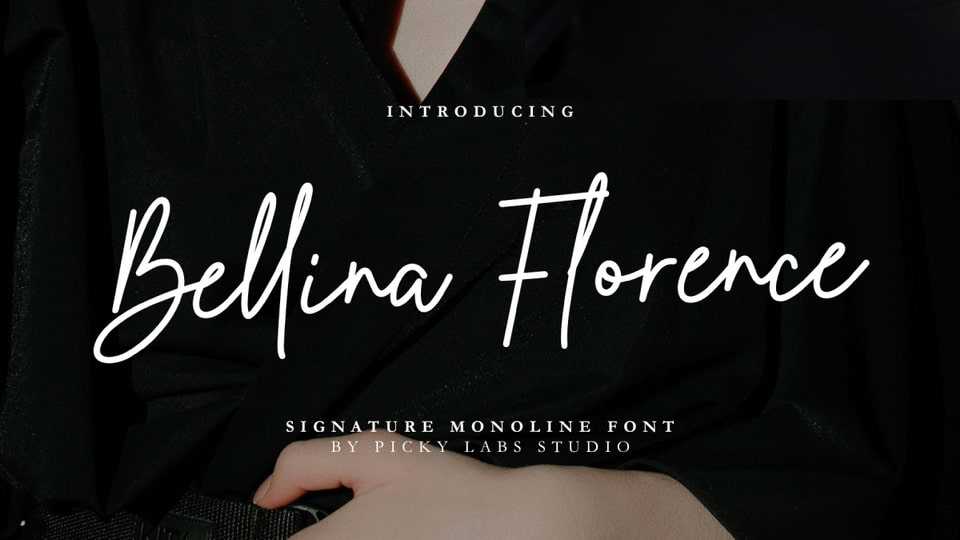
Download Bellina Florence font, a smooth signature style monoline typeface that has a strong character in each letter. It will be very suitable for branding projects, logotypes, wedding designs, social media posts and any projects that need handwriting taste.